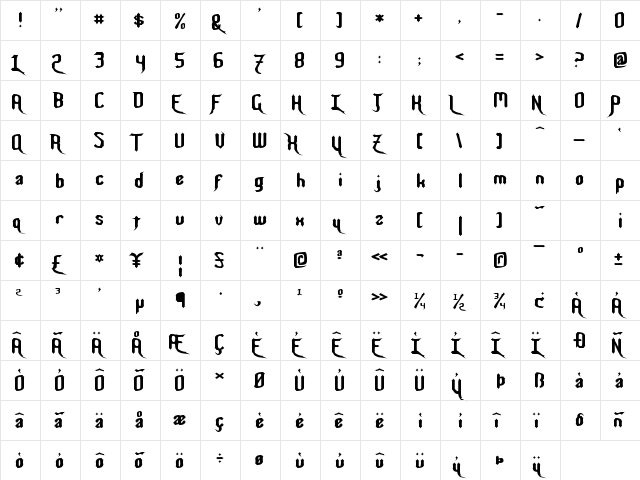
Nightwarrior Regular
| Designer | Neale Davidson |
Design Context for Nightwarrior Typeface
Nightwarrior is a composed and adaptable typeface that performs quietly and consistently across a wide range of design contexts.